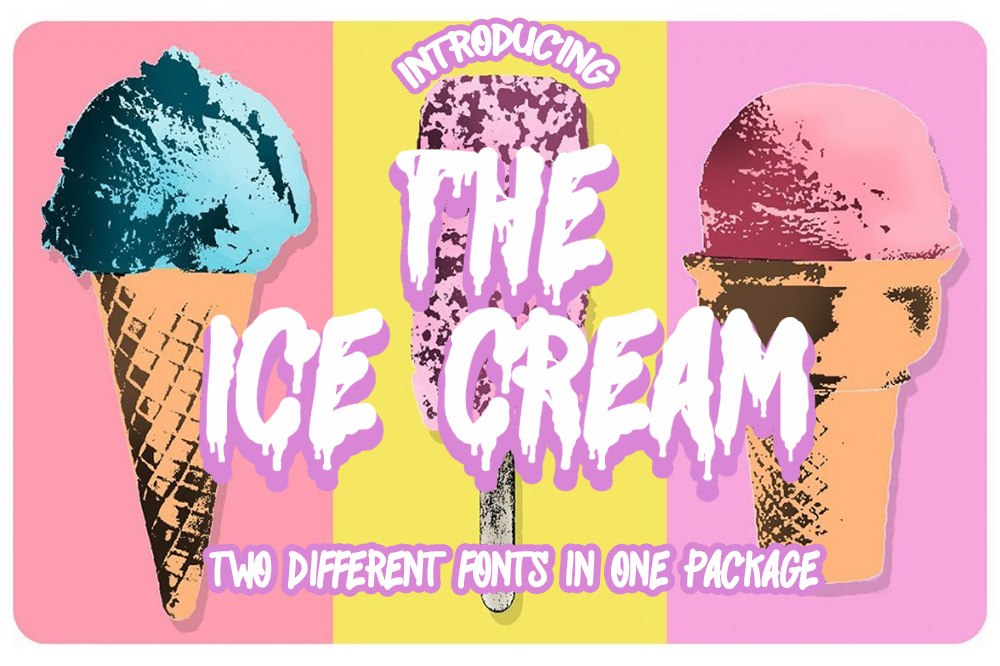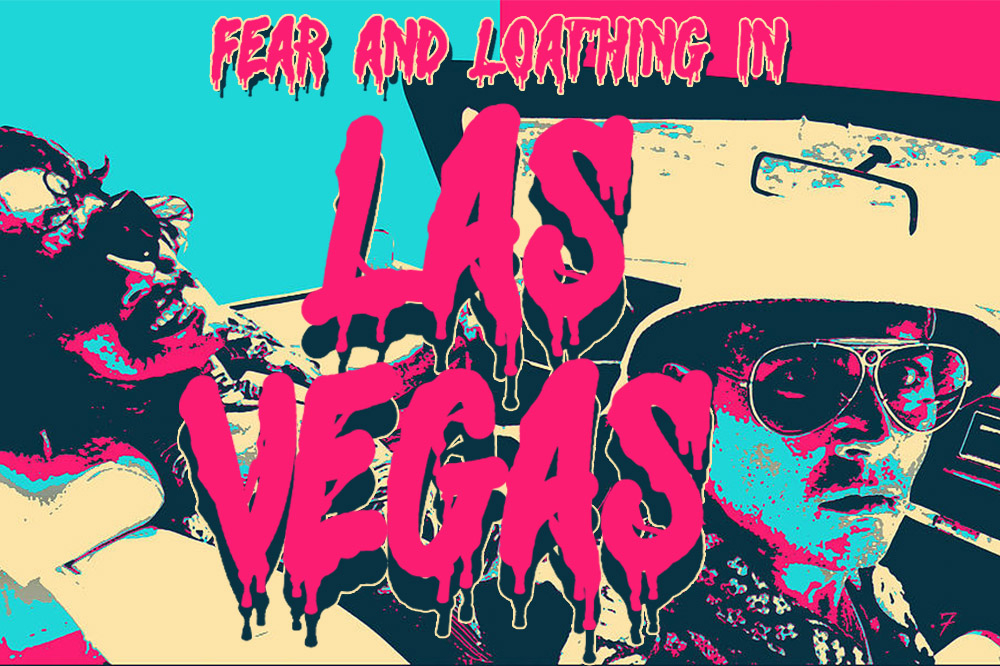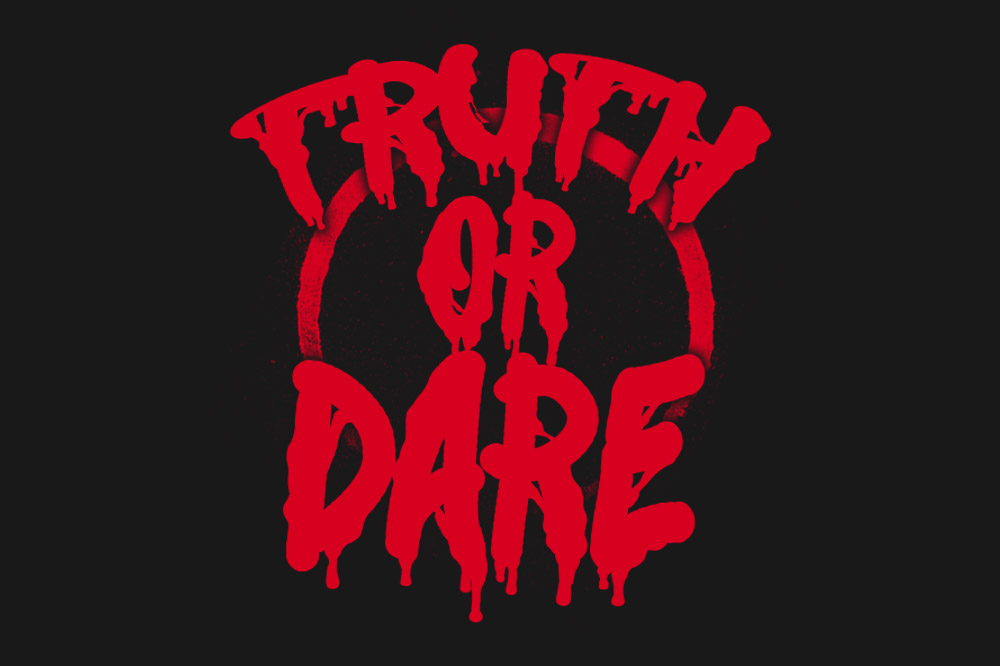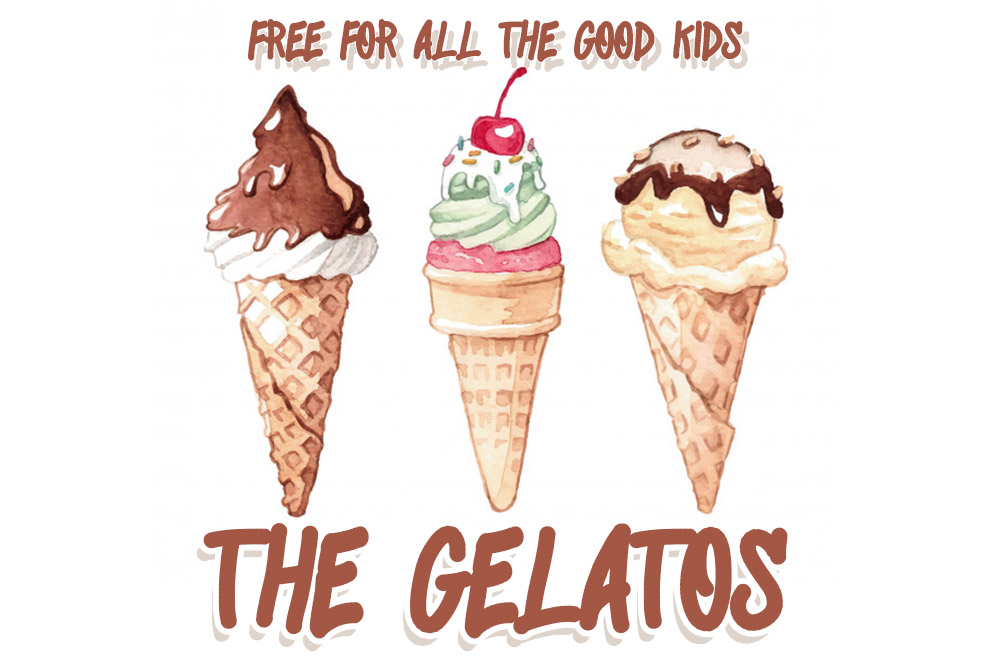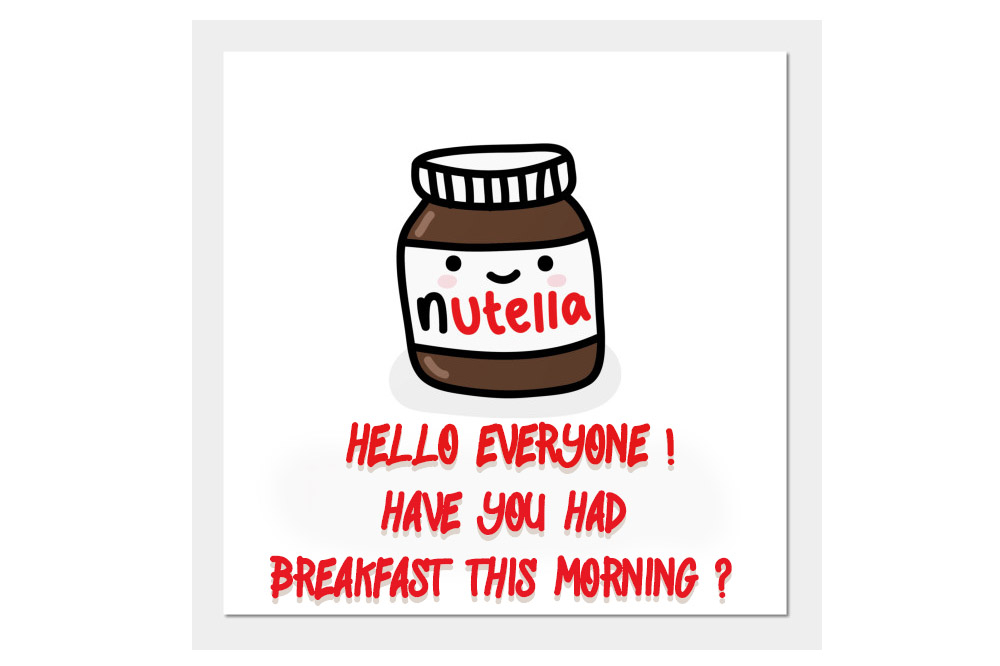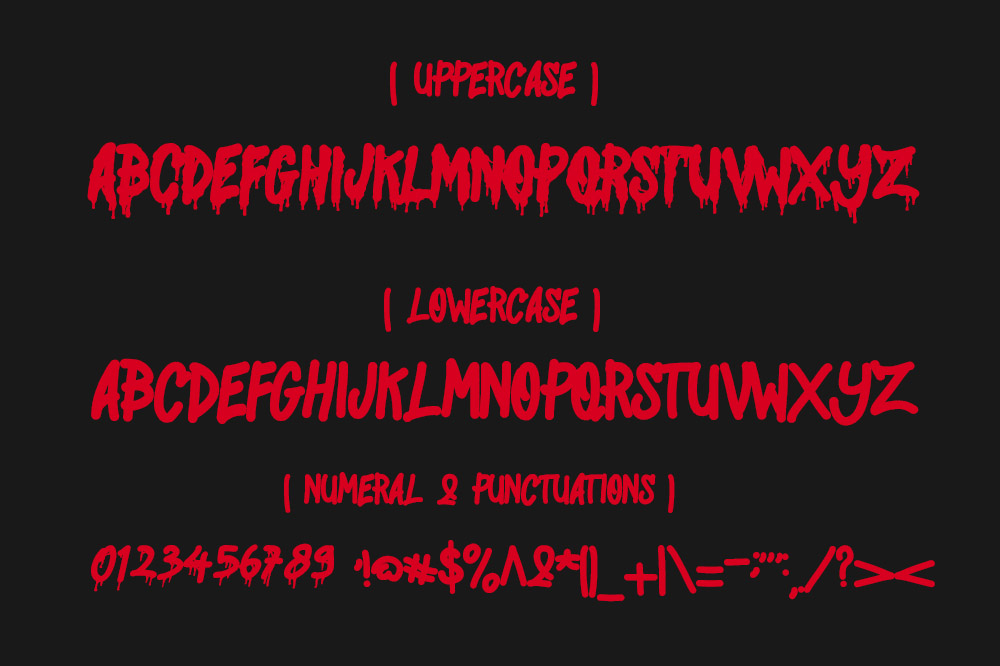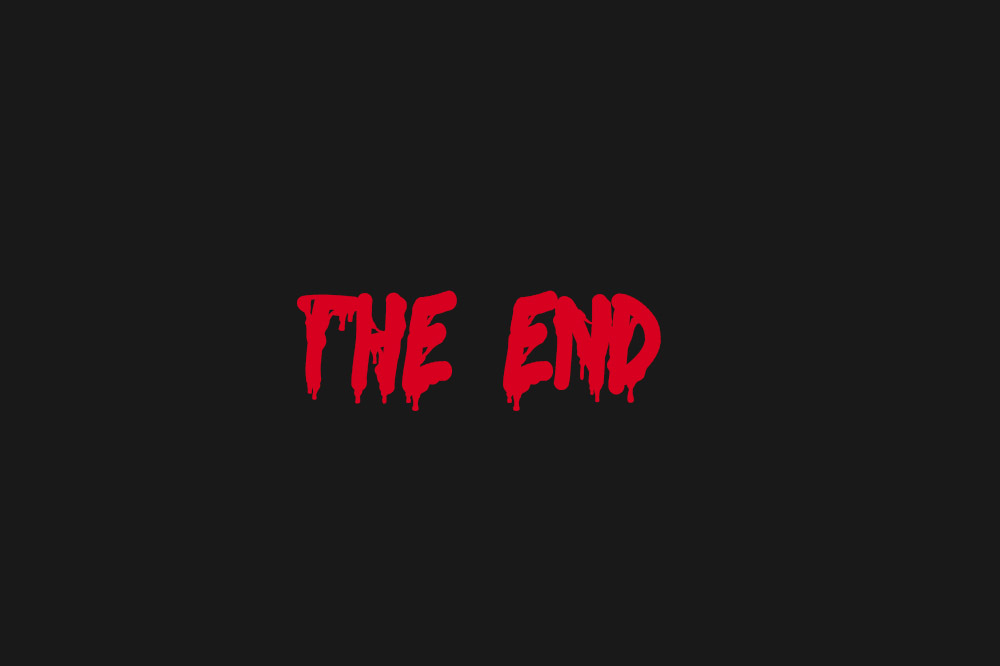
The Ice Cream Font
About The Ice Cream Font
The Ice Cream combines two sweet and charming font styles into one incredible font! It’s evoking the look of melting ice or snow, which makes it a fun font for both winter and summer projects, or even Halloween crafts!